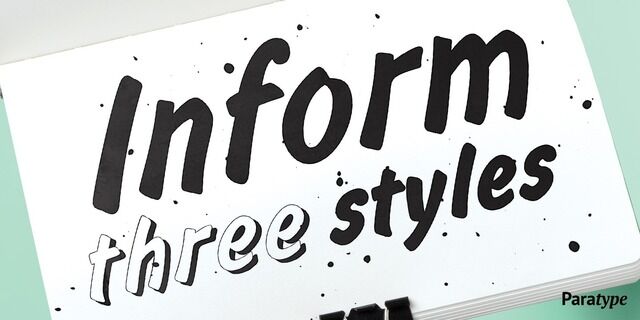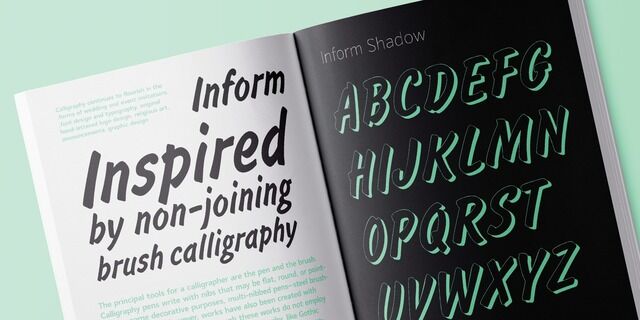
Inform (3 fonts)
About InformThe Inform typeface was designed by Gennady Baryshnikov for advertising and display typography. Bold Italic is based on Flash typeface, 1939, by Edwin W. Sharr. Additional styles were developed at ParaType (ParaGraph) in 1992 by Vladimir Yefimov and Alexander Tarbeev. Inspired by non-joining brush calligraphy.